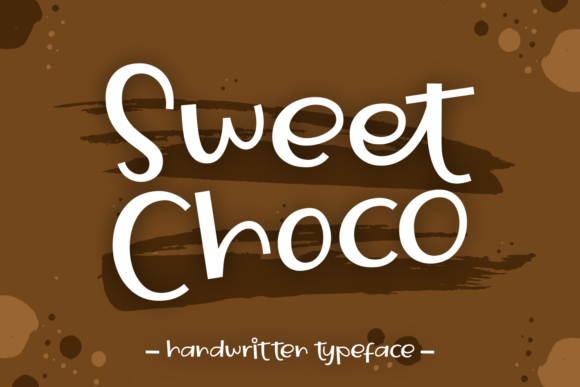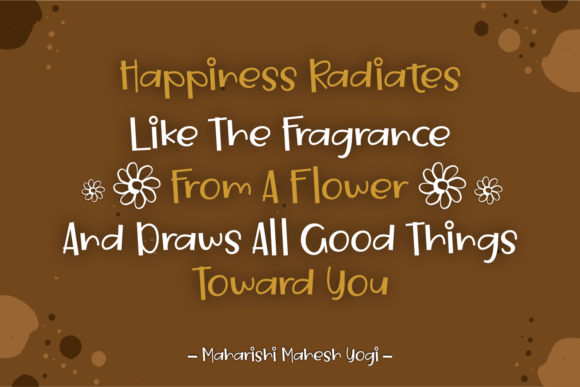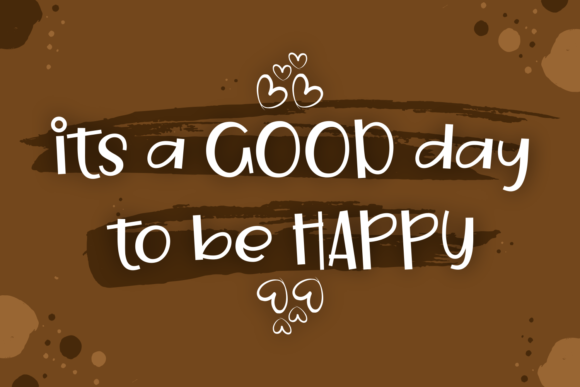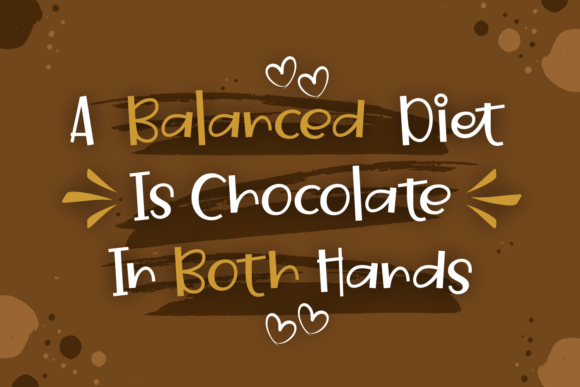
HomeScript FontsSweet Choco Font Script Fonts Sweet Choco Font FacebookXPinterestWhatsApp Sweet Choco Font Poster 2 Sweet Choco Font Poster 3 Sweet Choco Font Poster 4 About Sweet Choco Font Sweet Choco is a fun and cute handwritten font with a lot of authentic charm. Get inspired by its unique feel! DOWNLOAD ON CREATIVE FABRICAThis font is sold and delivered by Creative Fabrica. Font Canyon may earn a commission if you buy through this link. People also explored Walcotte Font Britney Font Hello Farmhouse Font Jatiroso Font Sweet Nothings Font Horsethrone Font Winter Brother Font Wandering Font Fish Grill Family Font 350 0 TagsSweet Choco Font Previous articleHello Friends FontNext articleReally Better Font LEAVE A REPLY Cancel reply Comment: Please enter your comment! Name:* Please enter your name here Email:* You have entered an incorrect email address! Please enter your email address here Website: Save my name, email, and website in this browser for the next time I comment. Personal Use Free Welliana Personal Use Free Read more about this font Broodfath Personal Use Free Read more about this font Darla Personal Use Free Read more about this font Awkward Personal Use Free Read more about this font BLOG Transform Your Website: Elevate Your Typography with 7 Best Web Font Generators Are you ready to transform your website's typography from ordinary to extraordinary? Great! Today, we're diving into the world of web font generators, which... Using Fonts in Digital Marketing: Tips to Strengthen Your Brand Identity Modern Sans-Serif Fonts That Brands Love in 2025 Best Fonts for YouTube Videos: Make Your Thumbnails Stand Out